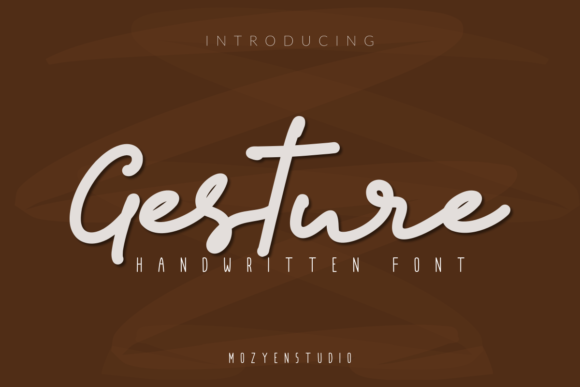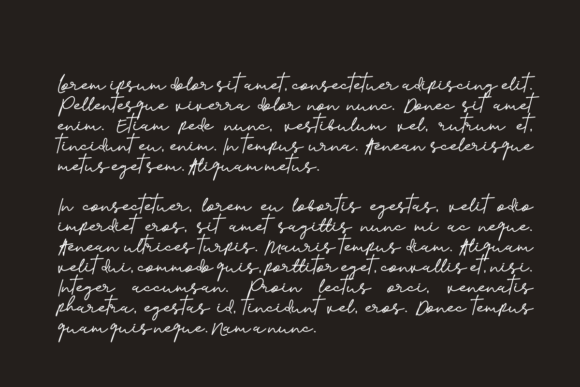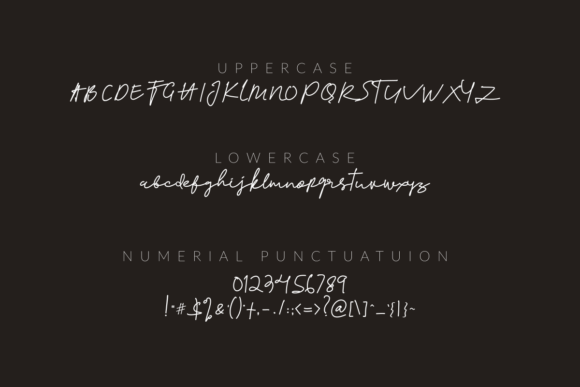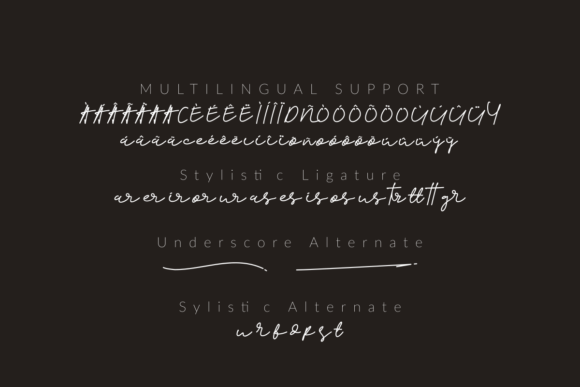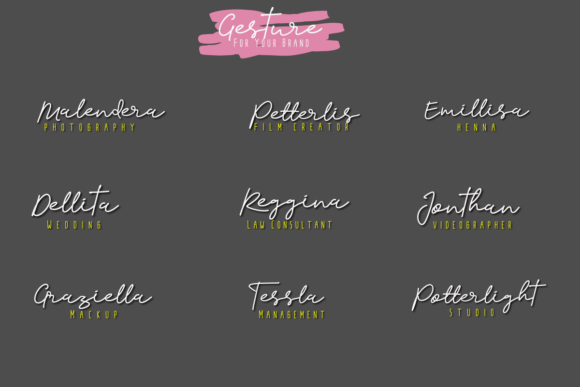
The Power of Gesture Font: Elevate Your Designs with Elegance
I’ll never forget the time I was working on a wedding invitation project, and my client asked for a font that exuded elegance and sophistication. I scoured the internet, tried out countless fonts, but nothing seemed quite right. That was until I stumbled upon Gesture Font. ✨ It was love at first sight! The sweet and simple script radiates elegance, and I knew I had found the perfect fit for my project.
An Honest Review of Gesture Font
- ✨ Elegant and sophisticated design that’s perfect for high-end projects
- 🎨 Versatile and can be used for a variety of design projects, from wedding invitations to branding and packaging
- 💻 Great for digital and print designs, with excellent performance on various backgrounds
While Gesture Font is an excellent choice for many projects, there are a few things to keep in mind: 🤔
- ⚠️ Limited character set compared to some other fonts, which may limit its use for certain languages or special characters
- ⚠️ Not ideal for body text or long paragraphs, as it can be a bit too ornate for reading
A Practical Guide to Using Gesture Font
- Experiment with OpenType features, such as ligatures and stylistic alternates, to add visual interest to your design
- Take advantage of OpenType features, such as glyphs and stylistic alternates, to add depth and interest to your design
If you love Gesture Font, you may also want to try these similar fonts:
- Lobster: A elegant and refined script font with a similar feel to Gesture Font. Use it for high-end branding and packaging projects.
- Pacifico: A beautiful and elegant script font with a relaxed, beachy vibe. Use it for creative projects that require a laid-back feel.
- Great Vibes: A fun and elegant script font with a similar sense of playfulness to Gesture Font. Use it for creative projects that require a lighthearted touch.
- Alex Brush: A lovely and elegant script font with a whimsical feel. Use it for projects that require a touch of sophistication and whimsy.
The Backstory of Gesture Font
Gesture Font was designed with the intention of creating a elegant and sophisticated script font that would be perfect for high-end design projects. The designer, inspired by classic calligraphy and elegant typography, aimed to create a font that would radiate elegance and refinement. 💫
Q: What is Gesture Font?
A: Gesture Font is a sweet and simple script font that radiates elegance and sophistication.
Q: What can I use Gesture Font for?
A: Gesture Font is versatile and can be used for a variety of design projects, from wedding invitations to branding and packaging.
Q: Is Gesture Font easy to read?
A: Yes, Gesture Font is highly legible, even at small font sizes, making it perfect for both digital and print designs.